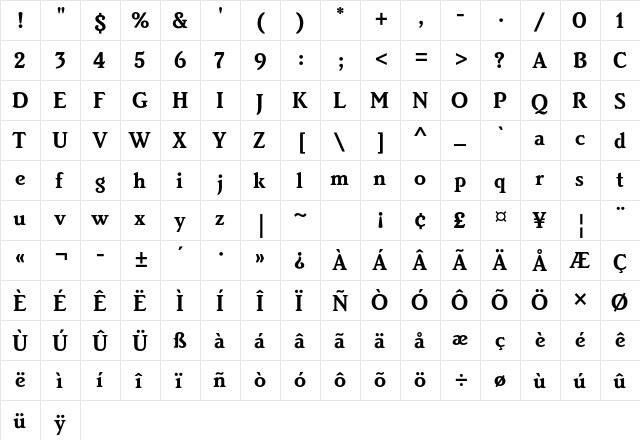
Brighton Std Bold
| Designer | Alan Bright |
Design Context for Brighton Std Typeface
Brighton Std takes a measured approach to typography — its balanced proportions and neutral character make it a reliable workhorse for both digital and print work. Its bold stroke weight gives it real presence on the page.